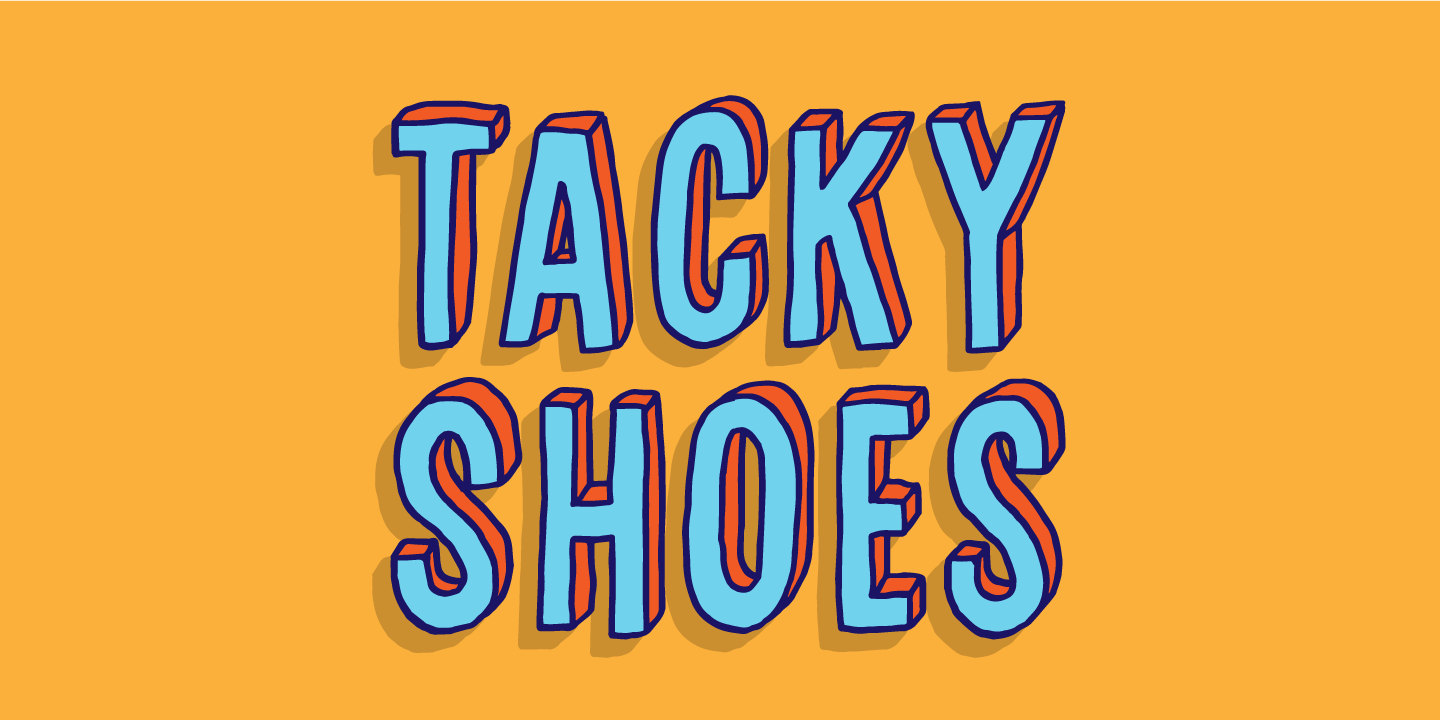
Tacky Shoes Font is perfect for various applications including quirky footwear branding, playful shoe store signage, retro fashion labels, vintage sneaker advertisements, thrift shop logos, eccentric boutique designs, funky clothing brands, alternative fashion magazines, creative social media graphics, and unconventional marketing campaigns.
What makes Tacky Shoes Font so exciting is its bold embrace of playful eccentricity and unapologetic character that celebrates individuality over conformity. This distinctive typeface features unconventional letterforms with whimsical variations and deliberately quirky details that capture the spirit of vintage footwear and alternative fashion culture. The font's rebellious character and intentionally offbeat aesthetic make it ideal for brands that want to convey creativity, authenticity, and bold self-expression to audiences who appreciate unique style, vintage finds, and alternative fashion choices.
Tacky Shoes Font family includes multiple weights and styles: Light, Regular, Bold, Black, Retro, Distressed, Condensed, Extended, and playfully designed Italic variants. Each family member maintains the font's signature quirkiness while offering different levels of visual impact and stylistic flexibility for diverse alternative fashion and creative applications.
The Tacky Shoes Font Free Download provides designers with access to a character-driven typeface that excels in alternative fashion and creative markets. Whether you're creating vintage shoe brand identities, designing quirky marketing materials, or developing unconventional digital experiences, this font delivers the authentic aesthetic needed to connect with style-conscious individuals. Its retro styling and eccentric essence make it particularly effective for thrift stores, vintage boutiques, and alternative fashion brands.
Typography enthusiasts will appreciate the intentional playfulness and authentic character in Tacky Shoes Font's design. The font features deliberately unconventional letterforms with quirky spacing, unique character variations, and carefully crafted proportions that ensure excellent personality while maintaining readable functionality. From vintage shoe advertisements to creative brand signage, this typeface maintains its authenticity and playful appeal across all design contexts.
For creative web designers, Tacky Shoes Font provides outstanding performance in alternative fashion digital environments and vintage-themed platforms. The font's technical specifications are optimized for modern displays while preserving the deliberately quirky edges that define its eccentric character. Its versatility makes it suitable for both static vintage content and interactive creative experiences.
Creative professionals working in alternative fashion, vintage retail, creative agencies, and unconventional brands will find Tacky Shoes Font to be an essential tool for projects requiring authentic character-driven communication. The font's ability to convey individuality, creativity, and alternative style makes it invaluable for brands targeting fashion-forward and creatively minded demographics.